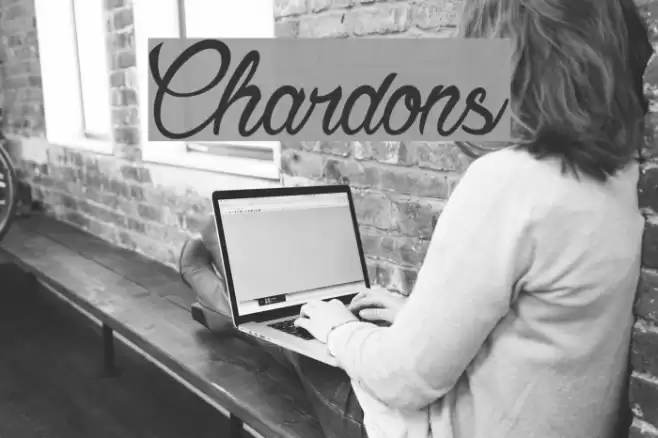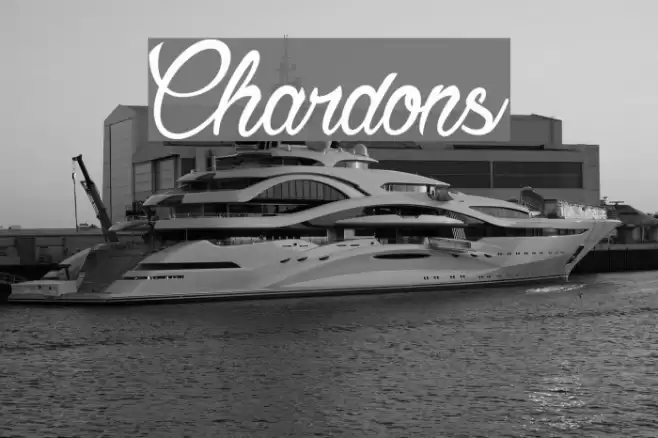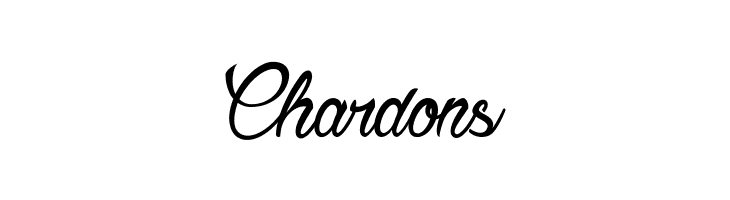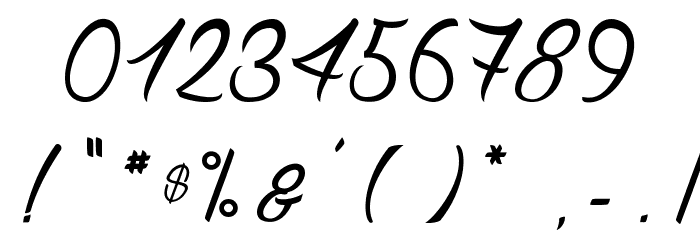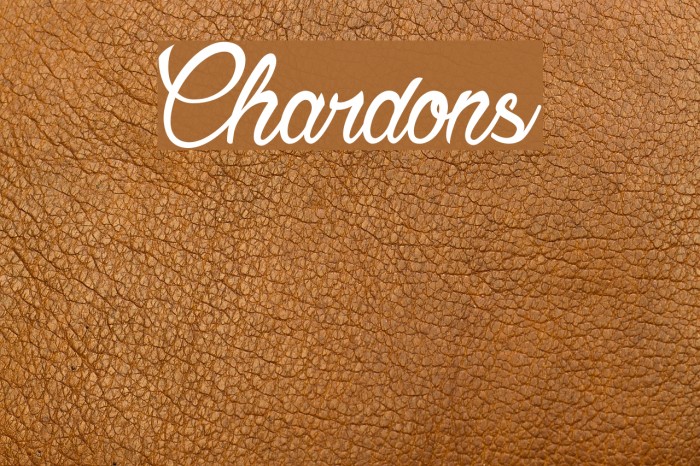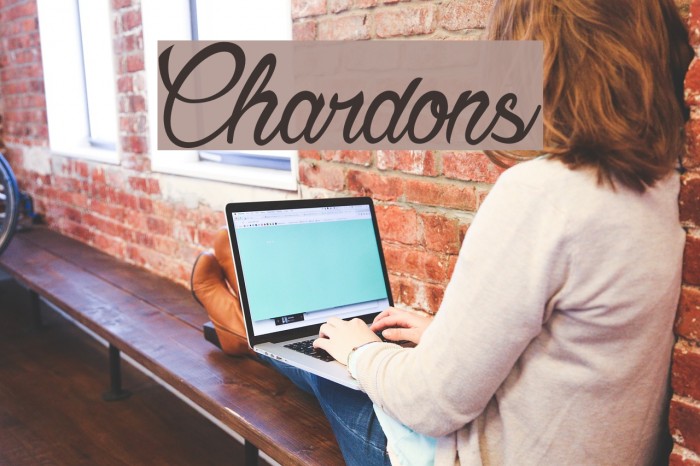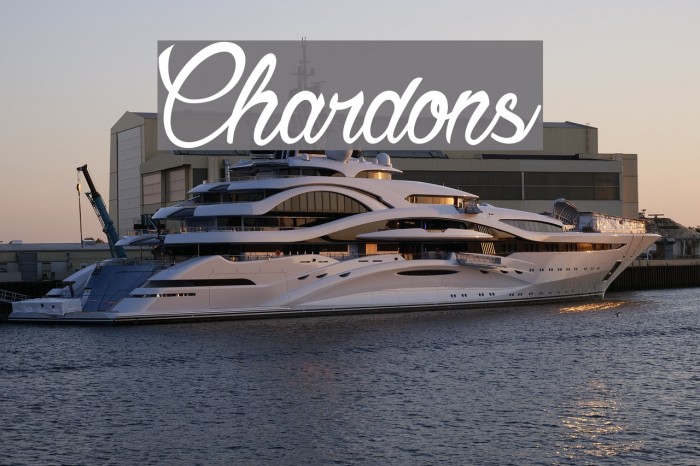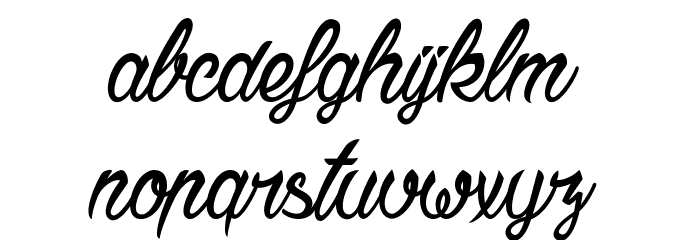
Chardons Font
Chardons Description
This font features a dynamic and flowing script style, characterized by its elegant cursive letters that mimic the fluidity of handwriting. The uppercase letters are slightly slanted, adding a sense of motion and grace, while the lowercase letters maintain a consistent flow with smooth curves and connections. The numerals are clear and distinct, maintaining the script style without sacrificing readability. Special characters are well-integrated, complementing the overall aesthetic. This font exudes a sense of sophistication and creativity, making it suitable for a variety of design applications.
A dynamic and elegant script font with flowing cursive letters from Uncategorized fonts.
- Proposed Projects: Ideal for wedding invitations, greeting cards, branding, and elegant logo designs.
- Overall Style: Elegant, Decorative
- Use Case: Logos, Invitations, Decorative text